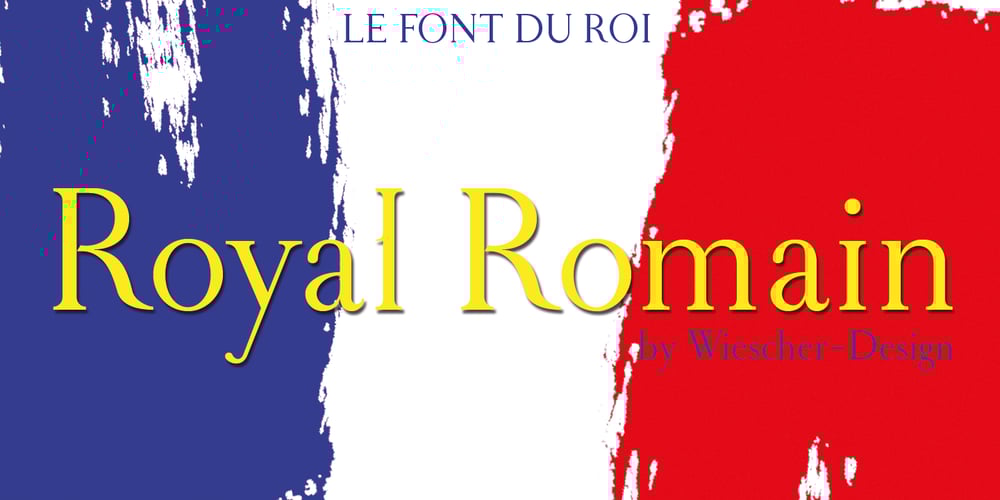
Royal Romain Font Family was designed by Gert Wiescher and published by Wiescher Design. Royal Romain contains 13 styles and family package options. Royal Romain was inspired by a font developed for the Sun King of France, Louis XIV. A group of “scientists” set off to work on the task of producing the ultimate font for the king of all kings. After years of elaborations Philippe Grandjean then started to cut the final punches for the “Imprimerie Royale” and finished his part of the work, with the font’s first appearance in the magnificent Médailles sur les principaux énvenémens du règne de Louis-le-Grand (1702). The complete set of 21 sizes of roman and italic letters was finished by Grandjean’s successor Jean Alexandre and completed by Louis Luce in 1745. The font went by the name of “Romain du Roi” and was for the exclusive use of Louis XIV. It was never sold or given to any other king or government. The king of Sweden tried to scrounge a set, but the king refused. This font is the basic design for such famous fonts as the Fournier and Bodoni. Just so the Romain du Roi didn’t get lost in the digital turmoil, I set out to redesign it in 2004 and finished in early 2008. I did a lot of research in France’s National Library. A good excuse to visit Paris is always welcome!!! Over the years people kept on asking me why there was no »Bold« cuts and I had to reply that to my knowledge the king did not have a bold version of his font. I did not really want to change that, but I got so many requests, that finally I have extended the font-family by a pair of bold cuts. And to make things even better, I extended the number of glyphs in both weights, they now have over 440 glyphs. So the fonts can be used in many more countries and they have better kerning and a lot of ligatures. Enjoy! I only sell in pairs, but for a fair price. Your very dedicated Gert Wiescher